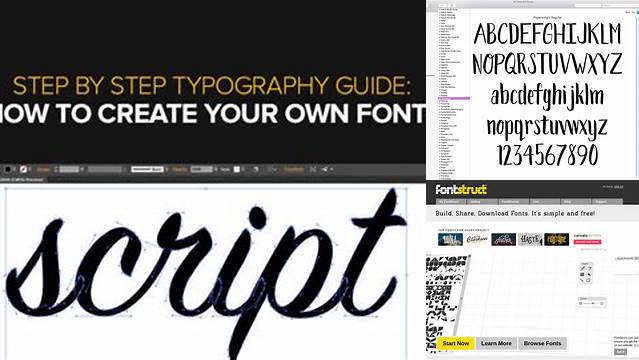
Create Your Own Font Free Online: A Beginner's Guide
Hey guys! Ever dreamed of seeing your handwriting or a unique design turned into a real font? Well, guess what? You can totally make your own font free online! It sounds intimidating, but with the tools available today, it’s actually super accessible. Let’s dive into how you can unleash your inner font designer without spending a dime.
1. Why Create Your Own Font?
So, why bother creating your own font? There are tons of reasons! For starters, it’s a fantastic way to personalize your projects. Imagine using your own handwriting on invitations, branding materials, or even in your digital art. It adds a touch of authenticity and uniqueness that you just can’t get with pre-made fonts. Plus, it's a super cool skill to have, and you might even discover a hidden talent for typography. Creating your own font also gives you complete control over the look and feel of your text, allowing you to tailor it perfectly to your specific needs. Whether you're a designer looking to expand your creative toolkit or just someone who wants to add a personal touch to their projects, making your own font is a rewarding and fulfilling experience. The ability to transform your handwriting or a unique design into a digital asset opens up a world of possibilities, allowing you to express your creativity in ways you never thought possible. Furthermore, having your own font can significantly enhance your brand identity. In a world where standing out from the crowd is crucial, a custom font can help you create a distinct and memorable visual presence. It's a subtle yet powerful way to communicate your brand's personality and values, leaving a lasting impression on your audience. So, whether you're looking to add a personal touch to your projects, expand your design skills, or elevate your brand identity, creating your own font is a worthwhile endeavor that can yield significant benefits.
2. Free Online Font Creation Tools
Alright, let's talk tools. There are a bunch of free online font creation tools that make this process a breeze. Some popular options include Calligraphr, FontStruct, and BirdFont. Each has its own strengths and quirks, so it’s worth exploring a few to see which one clicks with you. Calligraphr is awesome because it lets you upload your handwriting and turn it into a font. FontStruct is more about building fonts from geometric shapes, which is perfect for a more structured, digital look. And BirdFont is a desktop application that's free and open source, giving you more control over the fine details. These tools typically offer user-friendly interfaces, making it easy for beginners to get started. They provide a range of features, such as customizable glyphs, kerning adjustments, and spacing options, allowing you to fine-tune your font to perfection. Additionally, many of these tools offer tutorials and support resources to guide you through the process, ensuring that you can create a professional-looking font even if you have no prior experience. By leveraging these free online font creation tools, you can transform your creative ideas into tangible assets that can be used in a variety of projects. Whether you're a seasoned designer or a complete novice, these tools provide the resources and support you need to bring your font vision to life. So, take some time to explore the different options and find the tool that best suits your needs and preferences. With a little practice and experimentation, you'll be creating your own unique fonts in no time.
3. Step-by-Step Guide to Creating a Font
Ready to get started? Here’s a basic step-by-step guide:
- Choose Your Tool: Pick one of the free online font creation tools mentioned earlier.
- Design Your Glyphs: This is where you draw each letter, number, and symbol. Most tools provide templates or grids to help you maintain consistency.
- Upload or Create: Depending on the tool, you’ll either upload your hand-drawn glyphs or create them directly within the platform.
- Adjust and Refine: Tweak the spacing, kerning, and overall appearance of your font. This is crucial for readability and visual appeal.
- Test Your Font: Type out some words and phrases to see how your font looks in action. Make any necessary adjustments.
Following these steps will help you navigate the font creation process smoothly. Remember to take your time and experiment with different styles and techniques to find what works best for you. The key is to be patient and persistent, as creating a font that you're truly proud of may take some time and effort. However, the end result will be well worth it, as you'll have a unique and personalized font that you can use in all your creative projects. So, gather your tools, unleash your creativity, and start designing your own font today! With a little practice and dedication, you'll be amazed at what you can achieve.
4. Handwriting to Font: The Calligraphr Method
If you want to make my own font free online that looks like your handwriting, Calligraphr is your best bet. Here’s how it works: You download a template, print it out, and then fill in each box with the corresponding letter or symbol in your handwriting. Scan the completed template and upload it to Calligraphr. The tool then converts your handwriting into a font file. It’s surprisingly easy and the results can be incredibly personal and authentic. Calligraphr offers various customization options, allowing you to adjust the thickness, spacing, and other aspects of your font to achieve the desired look. You can also edit individual glyphs directly within the platform to refine your font and correct any imperfections. The process is straightforward and user-friendly, making it accessible to anyone, regardless of their design experience. By using Calligraphr, you can transform your unique handwriting into a digital asset that can be used in a variety of projects, from personal correspondence to branding materials. The ability to create a font that truly reflects your personality and style is a powerful tool that can help you stand out from the crowd and add a personal touch to everything you do. So, if you're looking for a way to make your font truly unique, consider using Calligraphr to convert your handwriting into a font today.
5. FontStruct: Building Fonts with Shapes
FontStruct takes a different approach. Instead of handwriting, you build fonts using geometric shapes. It’s like digital LEGOs for typography! You drag and drop shapes onto a grid to create each glyph. This method is great for creating modern, minimalist fonts with a distinct geometric feel. FontStruct offers a wide range of shapes and tools to help you create your font, allowing you to customize the size, rotation, and position of each element. The platform also provides a grid system that ensures precision and consistency in your design. While it may take some getting used to, FontStruct offers a unique and rewarding font creation experience. By experimenting with different shapes and arrangements, you can create fonts that are truly one-of-a-kind. The geometric nature of FontStruct fonts makes them ideal for a variety of applications, from logos and branding materials to digital art and web design. So, if you're looking for a way to create a font with a modern and minimalist aesthetic, FontStruct is definitely worth exploring. With its intuitive interface and powerful design tools, you can unleash your creativity and build fonts that are both visually stunning and functionally sound.
6. BirdFont: A Desktop Alternative
If you prefer a desktop application, BirdFont is a solid choice. It’s free and open source, giving you more control over the design process. While it might have a steeper learning curve than some of the online tools, it offers more advanced features and customization options. BirdFont allows you to create fonts with precise bezier curves, adjust kerning and spacing, and export your fonts in various formats. The desktop nature of the application means that you can work on your fonts offline, without the need for an internet connection. BirdFont also has a vibrant community of users who are willing to share their knowledge and expertise, providing a valuable resource for those who are new to the software. While it may take some time to master, BirdFont offers a powerful and flexible font creation experience that is well worth the effort. Whether you're a seasoned designer or a complete novice, BirdFont provides the tools and resources you need to bring your font vision to life. So, if you're looking for a free and open-source desktop font creation tool, BirdFont is definitely worth checking out.
7. Understanding Font Licensing
Before you start distributing your font, it's important to understand font licensing. Even if you make my own font free online, you need to consider how others can use it. Do you want to allow commercial use? Do you want to require attribution? There are various types of font licenses, such as SIL Open Font License (OFL) and Creative Commons licenses, each with its own set of terms and conditions. The OFL is a popular choice for open-source fonts, allowing others to use, modify, and distribute your font freely, even for commercial purposes. Creative Commons licenses offer more flexibility, allowing you to specify the terms of use, such as requiring attribution or prohibiting commercial use. It's important to choose a license that aligns with your goals and protects your rights as the font creator. Before releasing your font to the public, take some time to research the different types of font licenses and choose the one that best suits your needs. This will help you avoid any legal issues down the road and ensure that your font is used in a way that you're comfortable with. So, don't overlook the importance of font licensing – it's an essential part of the font creation process.
So there you have it! Creating your own font is totally achievable, and it's a super fun way to express your creativity. Give it a shot, and who knows? You might just design the next big font sensation!